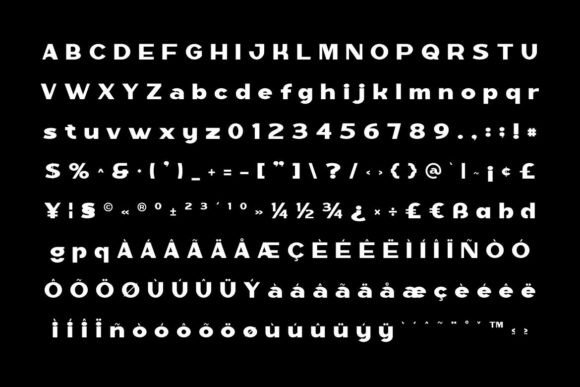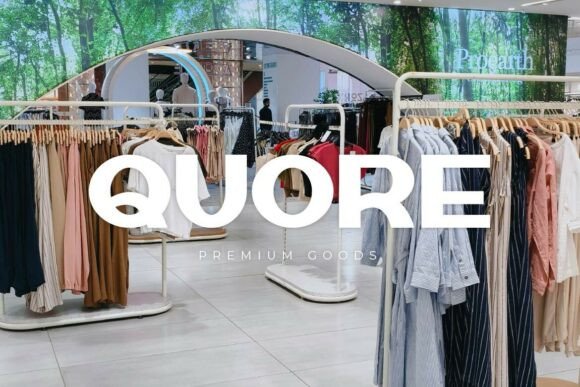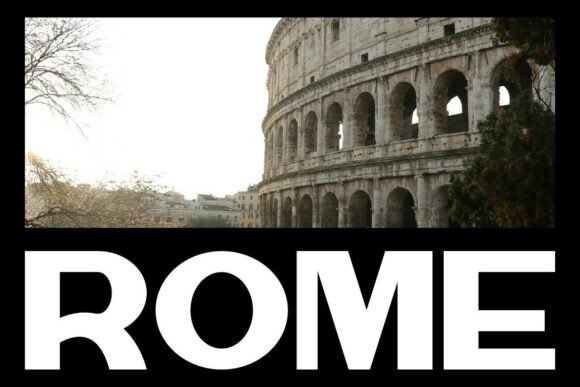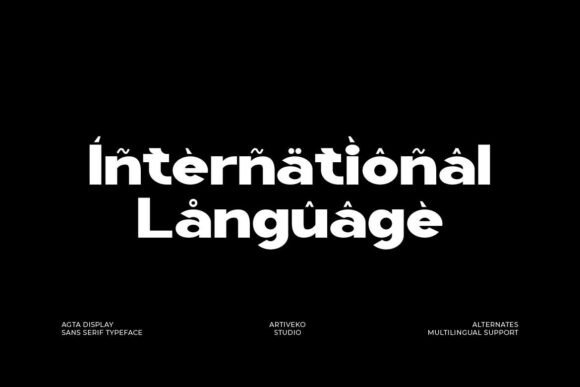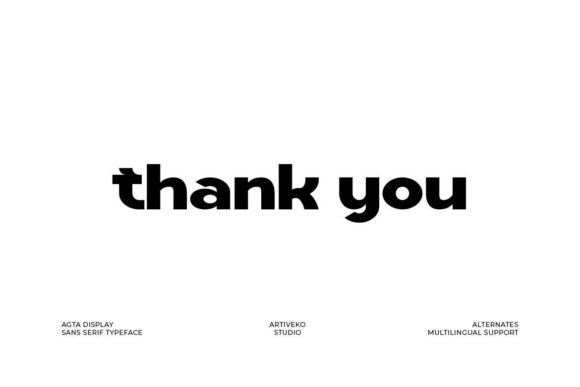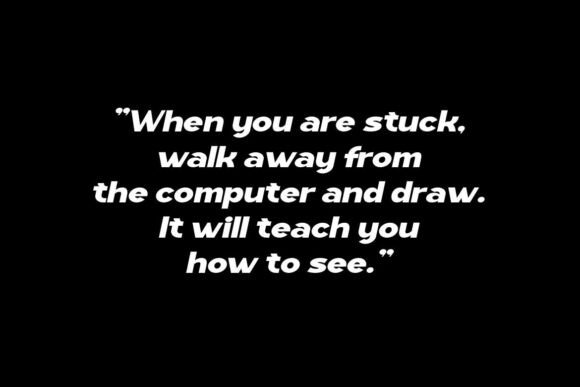
The Perfect Blend of Clarity and Style: Introducing Agta Font
As a designer, have you ever found yourself staring at a blank canvas, searching for the perfect font to bring your vision to life? You’ve tried countless options, but nothing seems to capture the essence of your creative idea. That’s where Agta Font comes in – a modern, creative sans serif typeface designed to bring clarity, flexibility, and a touch of contemporary style to your design projects.
With its clean lines, balanced proportions, and subtle unique details, Agta Font offers a professional yet expressive look that’s perfect for designers who want to make a lasting impression. Whether you’re working on a logo, brochure, or website, Agta Font is a valuable addition to your design toolkit, providing a versatile and stylish solution for any project.
Agta Font Key Features
- Unique Characteristics: Agta Font features a unique blend of traditional and modern design elements, making it an excellent choice for designers seeking a distinctive look.
- Font Style: Agta Font offers a range of font styles, including Regular, Bold, Italic, and Bold Italic, providing designers with ample flexibility to create visually appealing designs.
Agta Font Review
Overall, I have mixed feelings about the Agta font. It’s a unique, sans-serif font with a modern twist. I love how it incorporates bold, geometric shapes to create a futuristic look. ✨ The font feels modern and edgy, perfect for designs that require a bold statement.
One of the things that I appreciate about Agta is its versatility. It comes in a range of weights and styles, making it suitable for various design projects. ✨ Whether you’re creating a logo, heading, or body text, Agta has got you covered.
- ⚠️ Readability can be an issue at smaller font sizes, as the bold shapes can become overwhelming.
- ⚠️ Agta may not be the best choice for long blocks of text, as its unique style can be tiring to read.
- ⚠️ Limited support for some languages, which may be a concern for designers working on multilingual projects.
Overall, I think Agta is a great font for designers who want to make a statement. It’s perfect for bold headings, titles, and logos. However, it may not be the best choice for body text or projects that require a more subtle design approach. With its unique style and versatility, Agta is definitely worth considering for the right project.
Tips for Getting the Most Out of Agta Font
To get the most out of Agta Font, try combining it with other unique fonts and design elements to create a bold and eye-catching look. Experiment with different font sizes, colors, and styles to find the perfect combination for your design.
Agta Font is perfect for creating eye-catching titles, headings, and captions for social media graphics, presentations, and documents. It’s also great for adding a unique touch to blog posts, articles, and other written content.
Alternatives to Agta Font for Designers
1. Avenir Font
Avenir is a geometric sans-serif font designed by Adrian Frutiger in the 1980s. It is known for its clean and modern look, making it suitable for corporate and business applications. Avenir is a great alternative to Agta Font for designers who want a more traditional and timeless feel.
Comparison to Agta Font: Avenir has a more geometric and structured look compared to Agta Font’s more rounded and organic feel. Avenir is also more versatile and can be used in a wider range of applications, from body text to headlines.